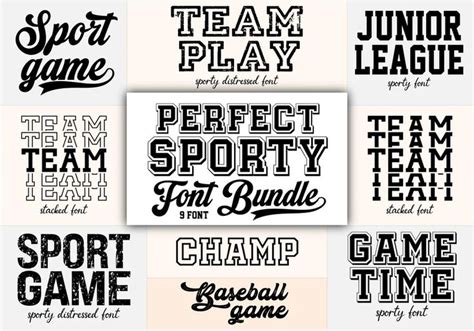
Baseball Jersey Fonts: A Comprehensive Guide
Hey sports fans! Ever been watching a baseball game and found yourself admiring the jerseys, wondering about the fonts used? Well, you’re not alone! The fonts on baseball jerseys are more than just a stylistic choice; they’re a critical part of a team’s identity and history. They can tell a story, evoke a sense of nostalgia, and instantly connect fans to their favorite teams. So, let’s dive into the fascinating world of baseball jersey fonts, exploring their evolution, characteristics, and some of the most iconic examples. This guide will help you understand the font choices and the impact these choices have on the overall look and feel of a baseball jersey. We’ll cover everything from the classic block letters to the more modern, stylized fonts, giving you a comprehensive overview of what makes each font unique and memorable. Let’s get started, guys!
The Evolution of Baseball Jersey Fonts
The history of baseball jersey fonts is a journey through time, reflecting the changing tastes and technological advancements of each era. Early baseball uniforms were incredibly simple, often featuring plain, unadorned lettering. These fonts were typically basic block letters, hand-stitched onto wool jerseys. Think of it like this: back in the day, everything was simpler, and so were the fonts! As baseball grew in popularity, so did the need for more distinctive and recognizable team identities. This led to the gradual evolution of jersey fonts, with teams experimenting with different styles to stand out. In the early 20th century, the introduction of felt and twill lettering allowed for more elaborate designs. Teams began to incorporate curved letters, serifs, and other embellishments, adding personality to their uniforms.
During the mid-20th century, a surge in font diversity happened. The ‘40s and ‘50s saw the rise of iconic fonts that are still used today. These included bold, block lettering with distinctive outlines and shadow effects. Many of these designs were influenced by Art Deco and other popular design trends of the time. The rise of television and the increasing importance of branding further fueled the evolution of jersey fonts. Teams realized that their uniforms were a powerful marketing tool. Therefore, they invested in fonts that were easily recognizable and memorable. The late 20th and early 21st centuries saw even more experimentation. This included the use of custom fonts, bold colors, and various design elements to create unique visual identities. Today, teams continue to update their jersey fonts, often incorporating retro designs or modern interpretations of classic styles. This continuous evolution means that baseball jersey fonts are an ever-changing landscape, with new and exciting designs constantly emerging, keeping the look fresh and engaging for fans. It’s a testament to the enduring appeal of the sport and the constant quest for visual excellence.
Early Designs and Influences
Let’s rewind the clock and take a look at the very beginnings. The early days of baseball jersey fonts were all about simplicity and functionality. Early designs, as mentioned before, were very plain. They featured basic block letters or simple script fonts, reflecting the limited technology available at the time. These fonts were often hand-stitched onto the jerseys, making them relatively uniform. The emphasis was on clarity and readability rather than elaborate design. These designs were largely influenced by the need for quick identification on the field. The primary goal was to ensure that players could be easily recognized by both teammates and spectators. Uniformity was key, with fonts often standardized across teams and leagues. The focus was less on branding and more on the practicality of the game.
As the game evolved, so did the design sensibilities. Influences from other areas, such as advertising and graphic design, began to seep in. Designers started to experiment with different weights, styles, and embellishments, trying to create a more distinct visual identity. The rise of Art Deco and other design movements in the early 20th century also had a significant impact. These styles inspired the use of bolder fonts, intricate details, and unique letterforms. The early designs were also heavily influenced by the limitations of the materials and techniques available. Felt and twill lettering, for example, allowed for more detailed designs compared to hand-stitched letters. This gradual shift marked the beginning of a more dynamic and expressive approach to baseball jersey fonts, paving the way for the iconic designs we see today. The simplicity of early designs set the stage for the creative explosion that would follow, showcasing how even the most basic elements can evolve into something truly special.
The Rise of Iconic Fonts
Fast forward through the decades, and we hit the golden era of baseball jersey fonts. The mid-20th century witnessed the emergence of several iconic fonts that continue to resonate with fans today. These fonts weren’t just about letters; they were about creating a visual identity that represented the team’s history, values, and fan base. Some of the most recognizable examples include the classic block lettering of the New York Yankees, the stylish script of the Los Angeles Dodgers, and the distinctive